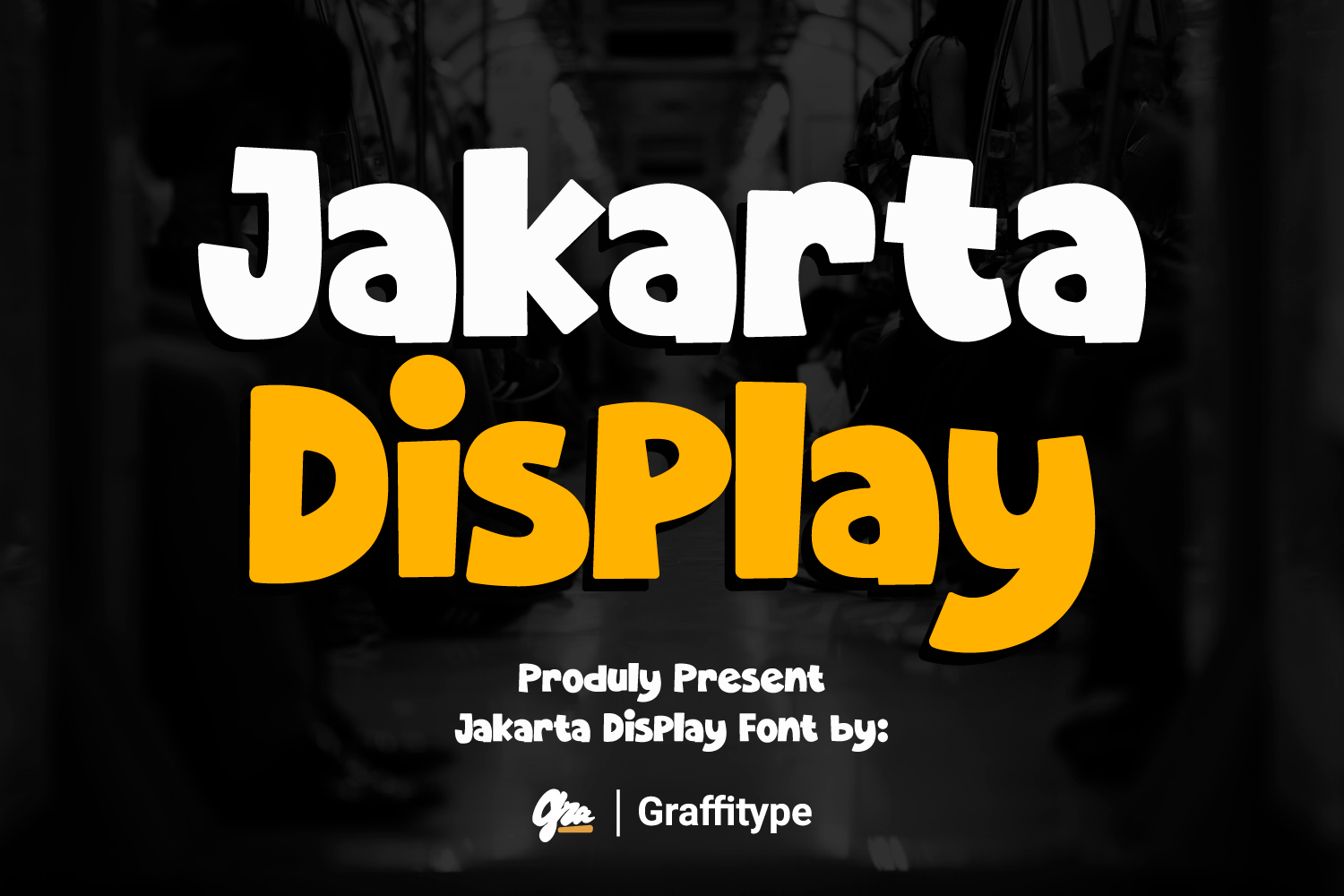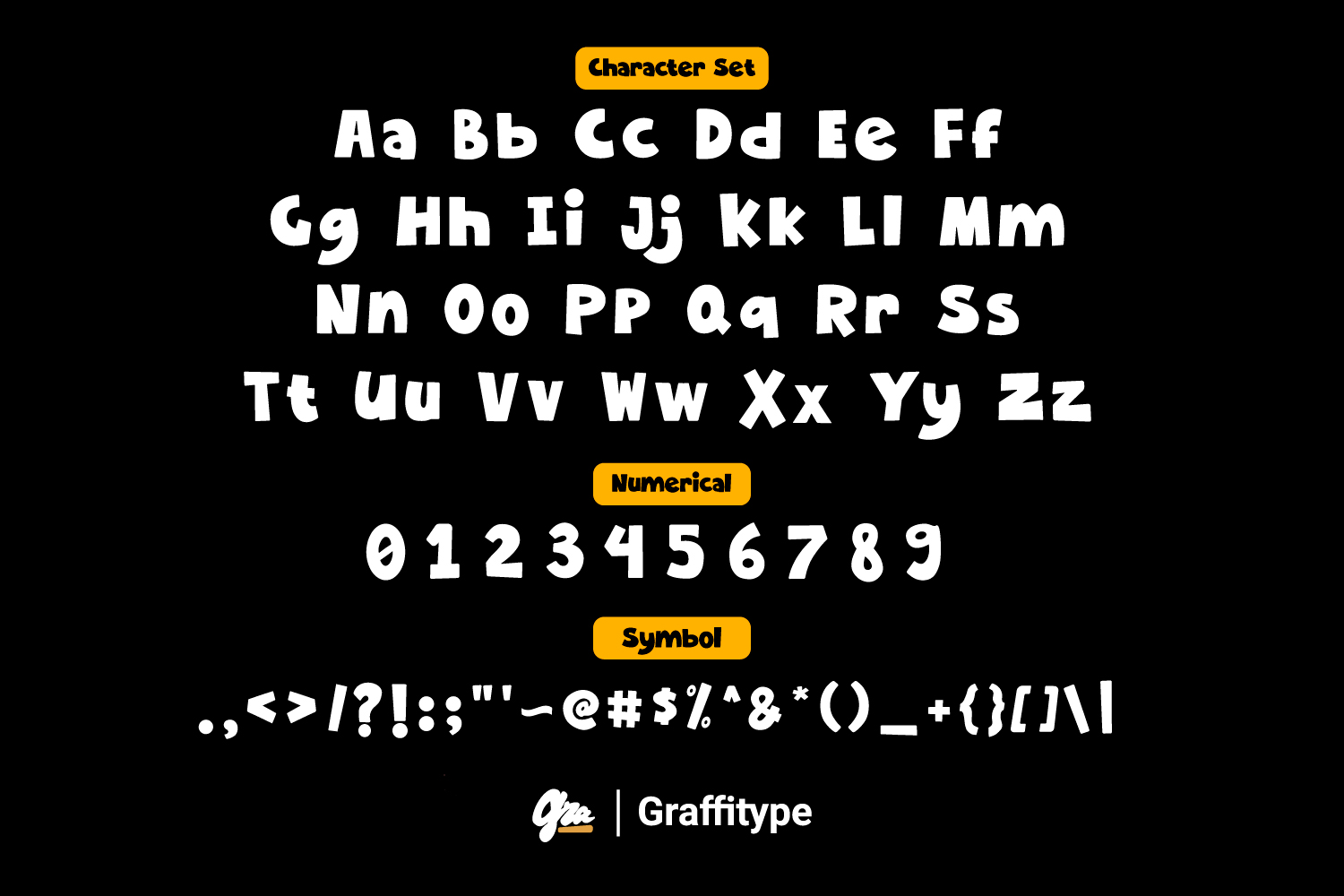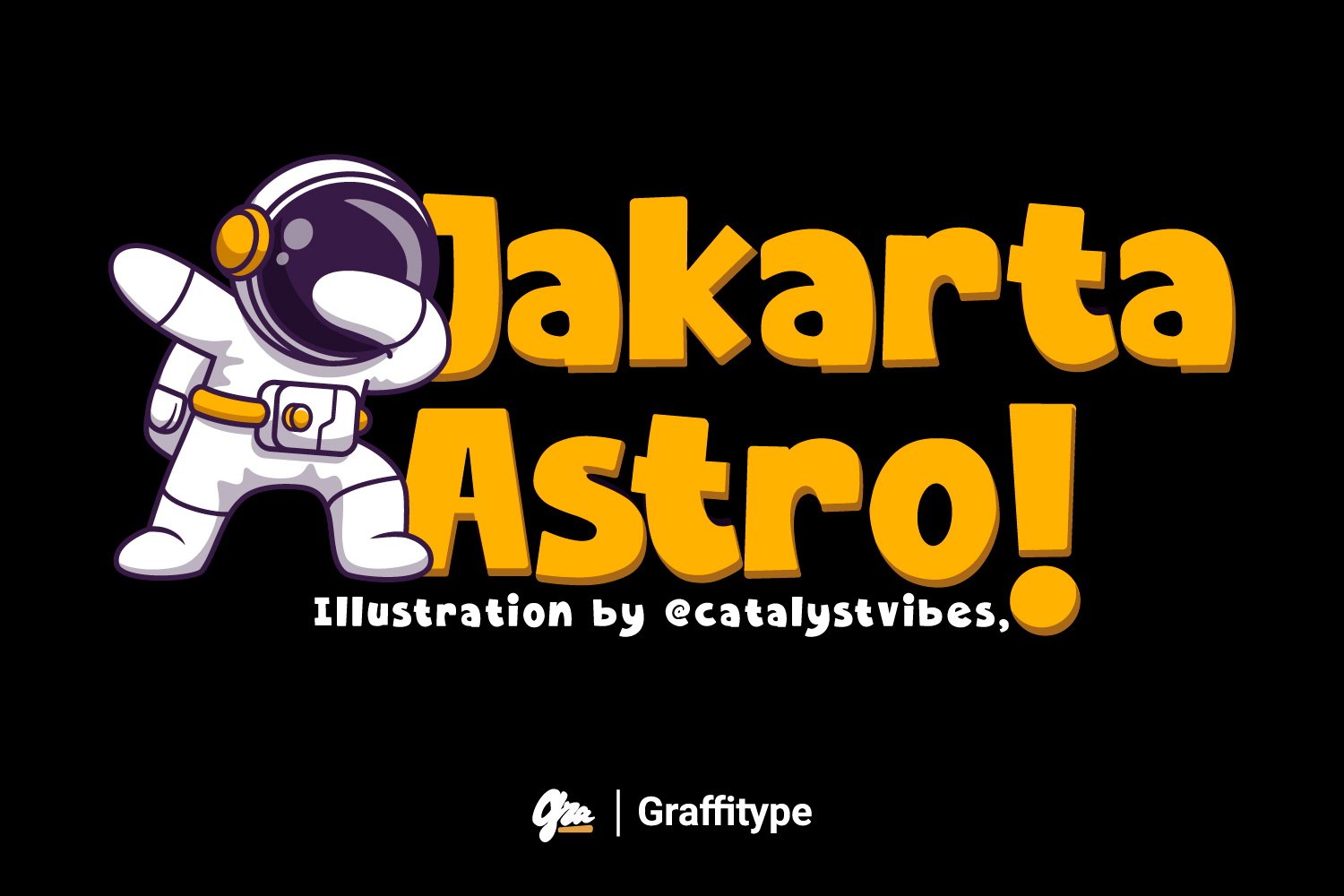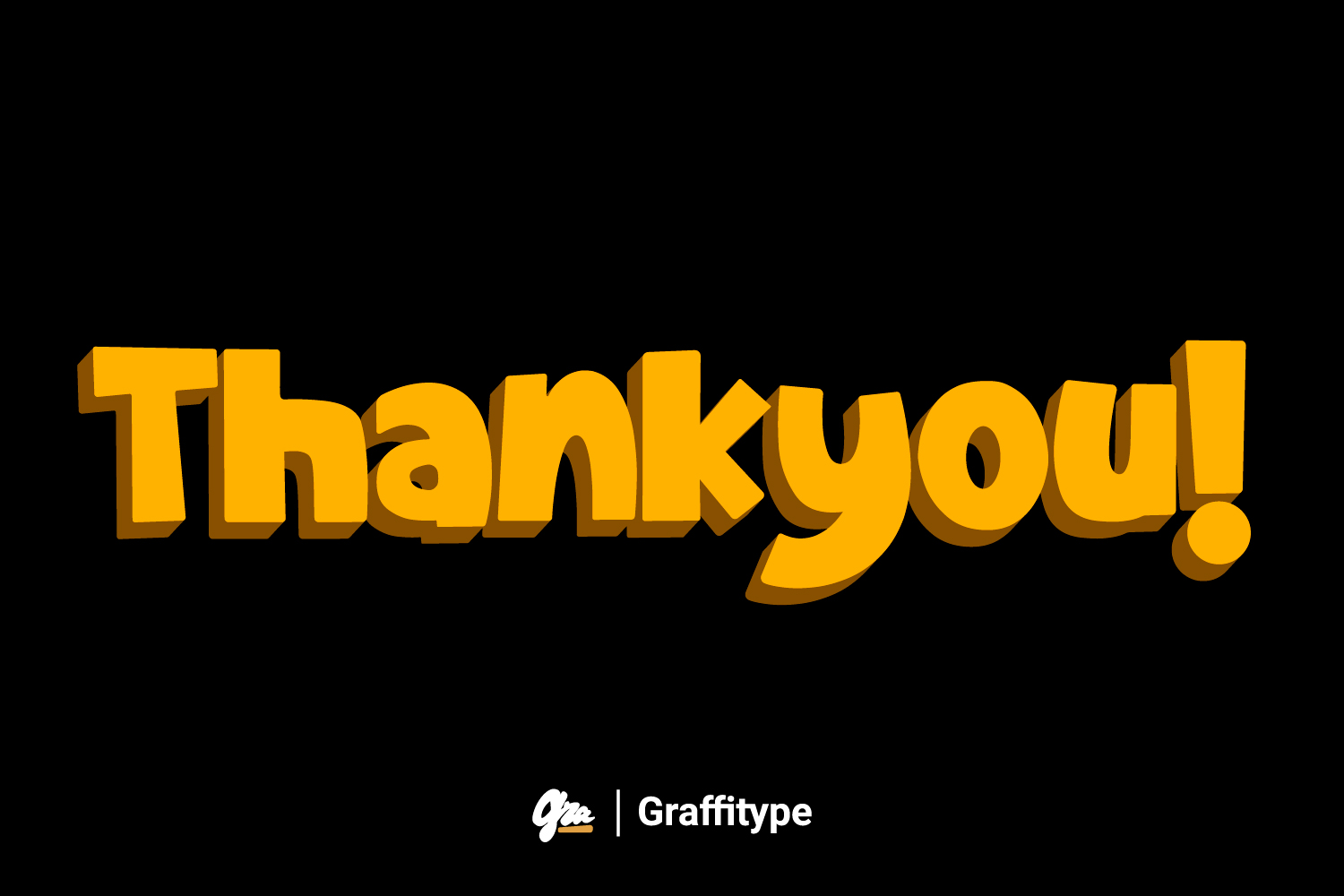
Jakarta Display
by
Graffitype Studio
Jakarta Display is a modern and versatile display font designed to make a bold impression. Created by Graffitype Studio Font, this font inspired by the vibrant and dynamic city of Jakarta, this font features clean and bold, rounded edges, and a contemporary aesthetic that is perfect for headlines, posters, logos, and other large-format applications.
Jakarta Display stands out with its unique character shapes and attention to detail, making it an excellent choice for designers looking to create striking and memorable designs. Its readability and stylish appearance make it suitable for both digital and print media, ensuring your message captures attention and conveys a sense of modernity and sophistication.